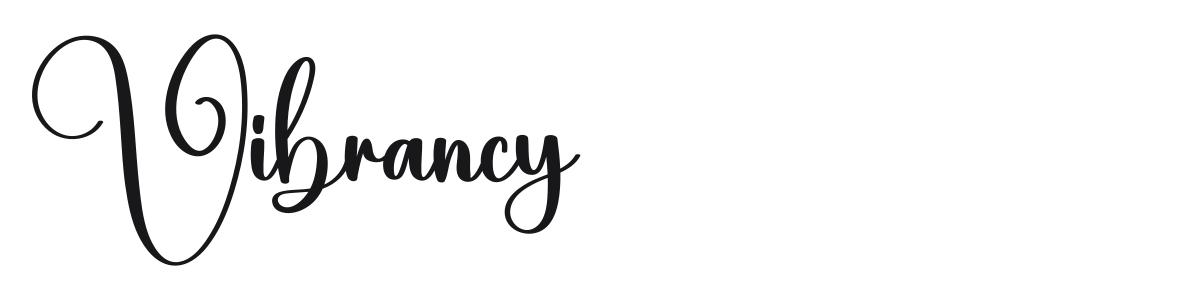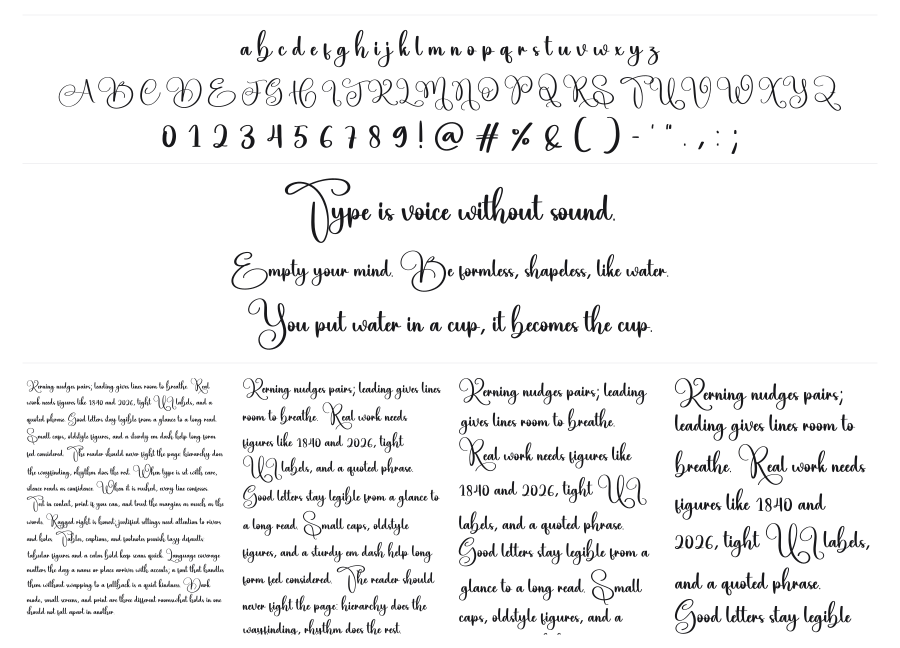
Vibrancy
Vibrancy is a contemporary casual script with flowing connected strokes and a lively calligraphic energy. Tall looped ascenders, sweeping descenders, and a bouncy baseline give it a handmade warmth that works across wedding stationery, packaging, and social media graphics. The moderate stroke contrast keeps it readable at display sizes without losing its playful, organic character.